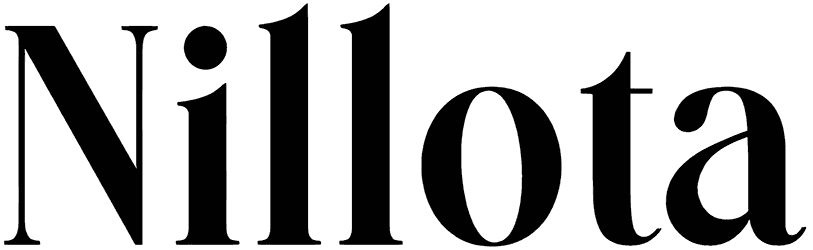
Nillota Font
Respected, fashionable, and aesthetic, that’s the kind of design you get when you let Nillota arrange your letters so gracefully. After all, it’s a logo font we’re talking about and that’s exactly what it’s supposed to do to your typography.
A tasteful serif font like this will never make you worry about your art having enough pull or not. So feel free to consider it for your important branding projects like fashion companies, restaurants, hotels, art classes, you name it.